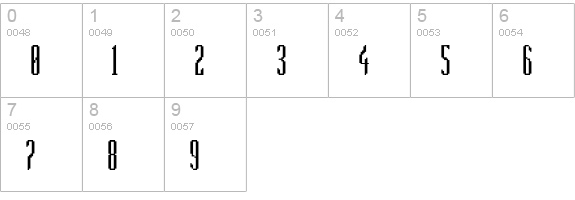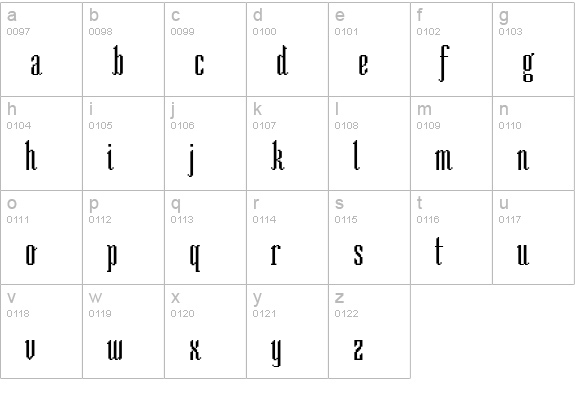
So Narrow Font Details
So Narrow is a distinctive, condensed-width variant in the So typeface family \xE2\x80\x94 well suited to design and typography projects.
Introducing So Narrow, a sleek and stylish font that is perfect for adding a touch of elegance and sophistication to your designs. With its slender and elongated letterforms, So Narrow exudes a sense of modernity and refinement, making it an ideal choice for a wide range of projects. This font is meticulously crafted with attention to detail, ensuring every character is precisely balanced and harmonious. From its sharp serifs to its delicate curves, So Narrow exudes a sense of precision and craftsmanship that will elevate your designs to new heights. One of the standout features of So Narrow is its versatility. Whether you're designing a logo, creating a poster, or crafting a headline, this font can adapt to any situation with ease. Its clean and minimalistic aesthetic allows it to seamlessly blend into any design, while still making a bold statement. But what truly sets So Narrow apart is that it is completely free. Yes, you read that right! This stunning font is freely available to download at FontsMarket.com, allowing you to bring a touch of elegance to your projects without breaking the bank. So Narrow is the perfect choice for designers and creatives who want to make a lasting impression without compromising on quality or budget. So why wait? Download So Narrow now and unlock a world of possibilities for your designs. With its impeccable craftsmanship, timeless elegance, and the added bonus of being free, So Narrow is a font that will truly elevate your creative endeavors.